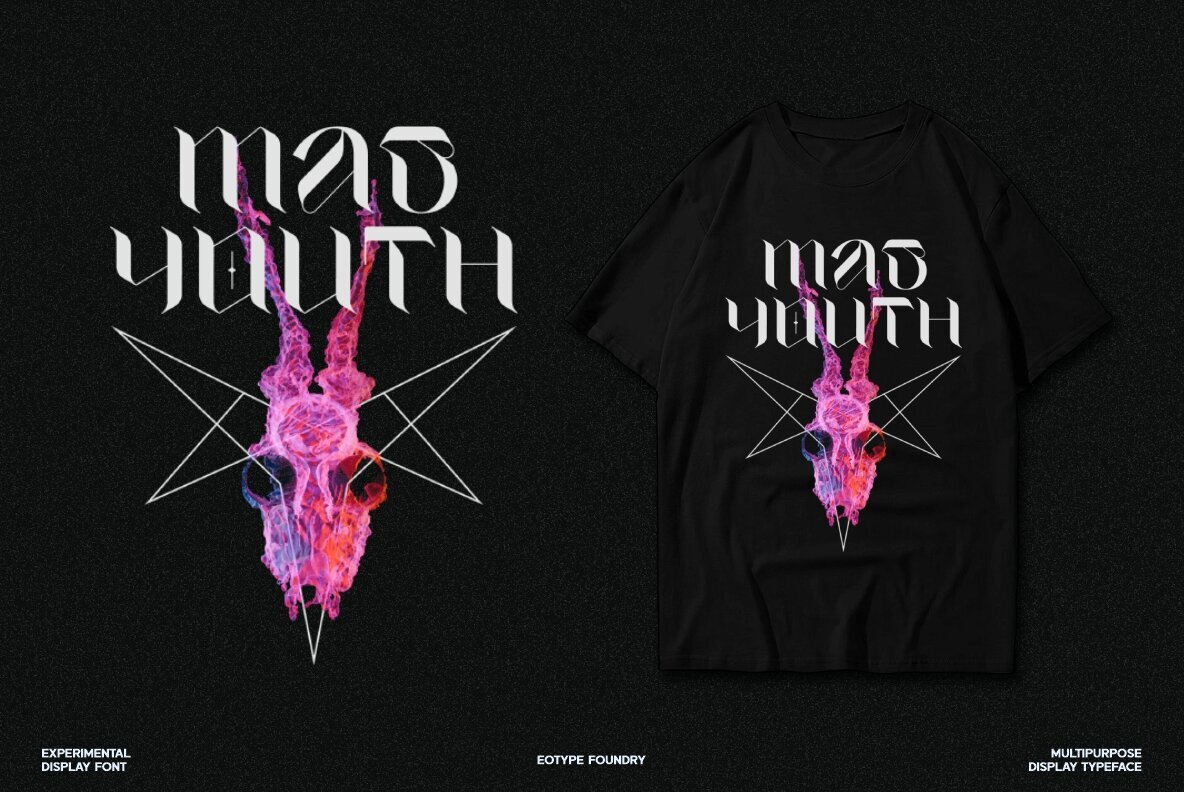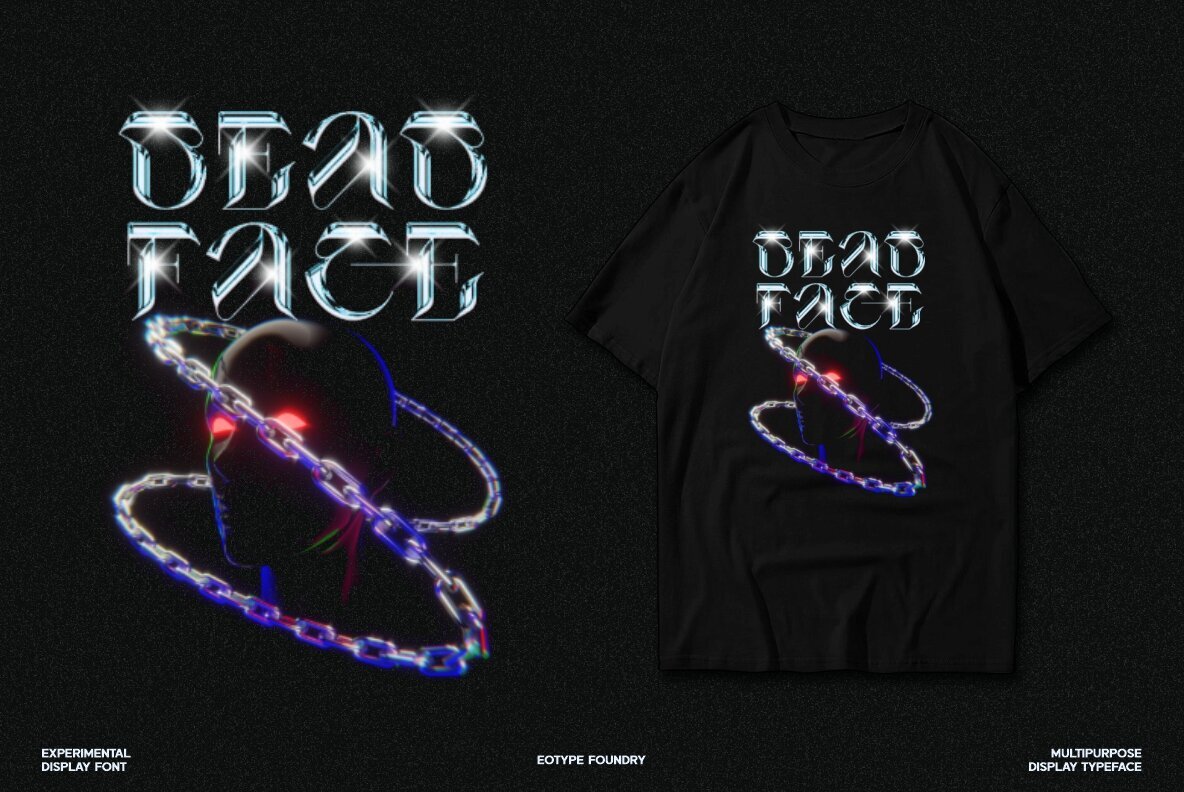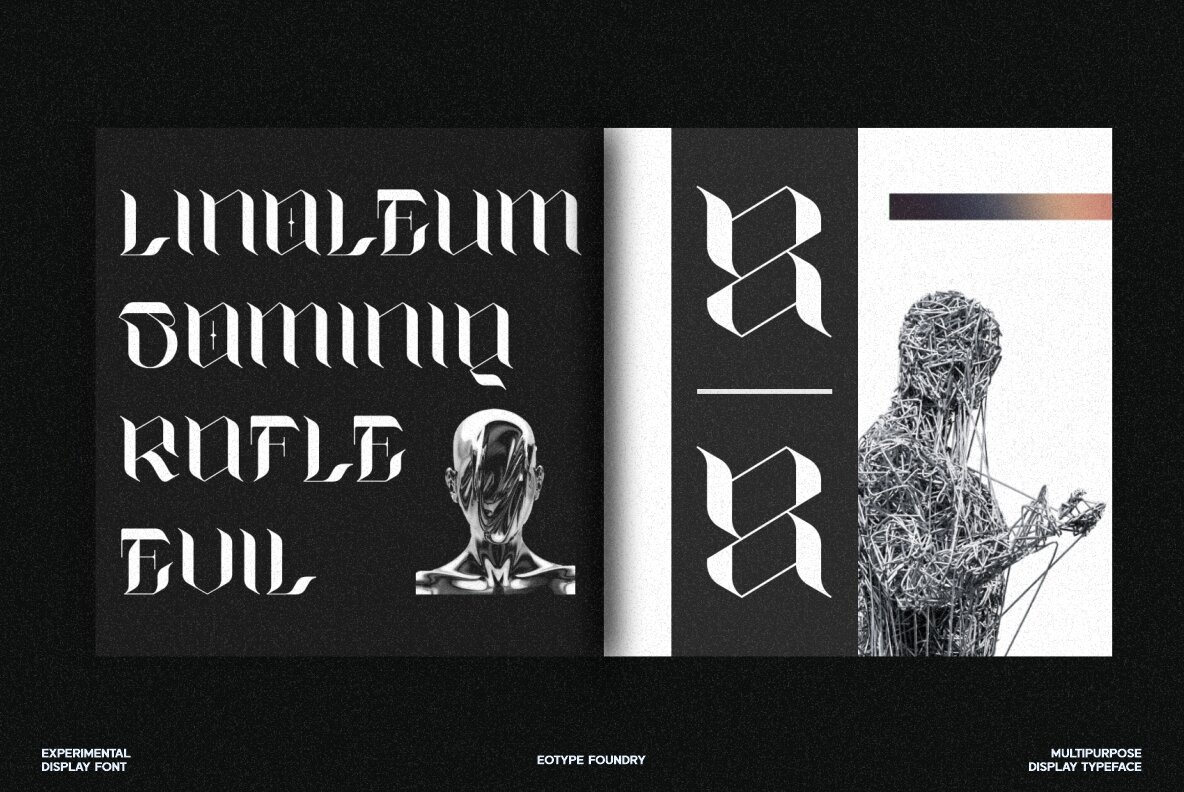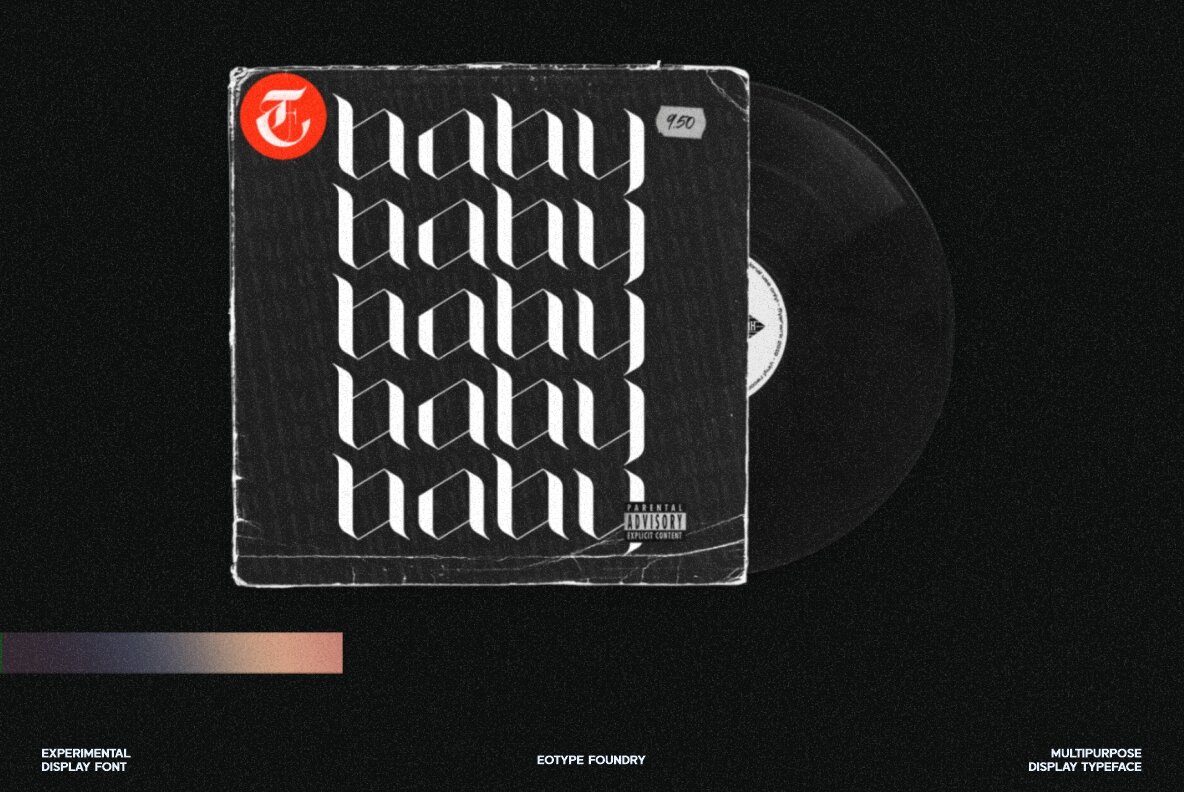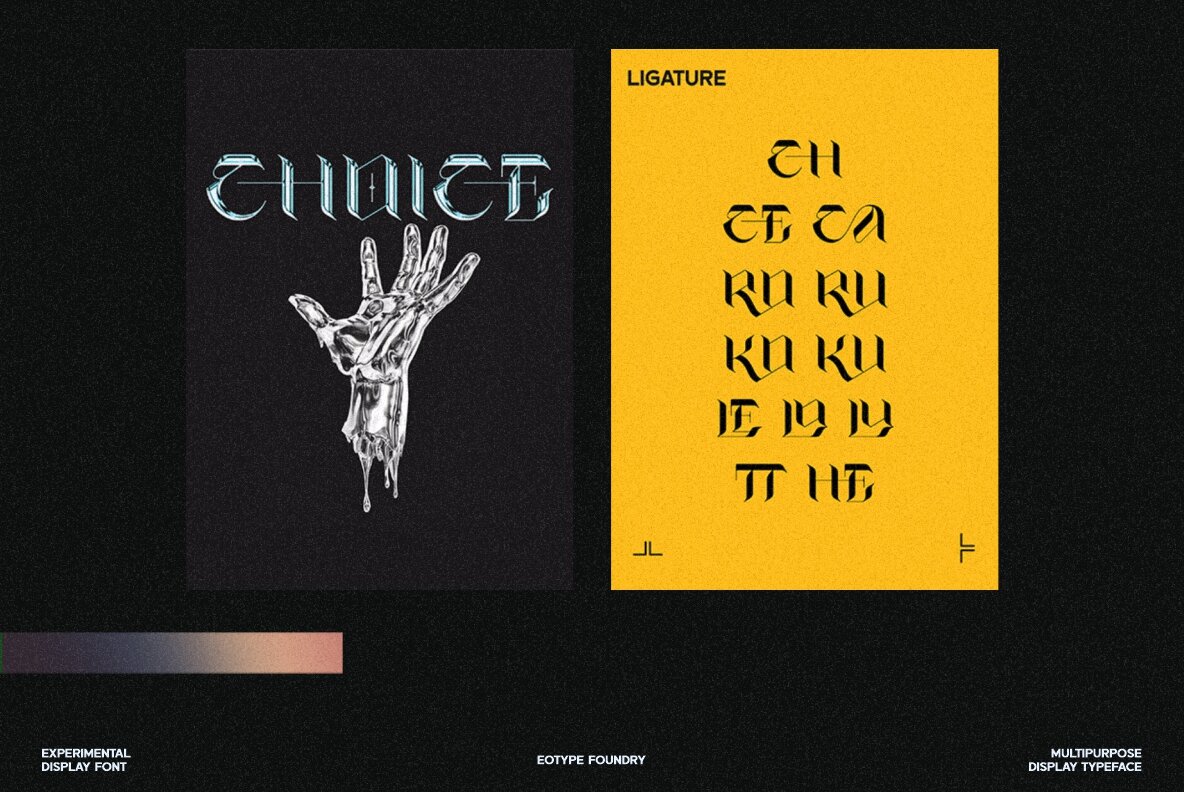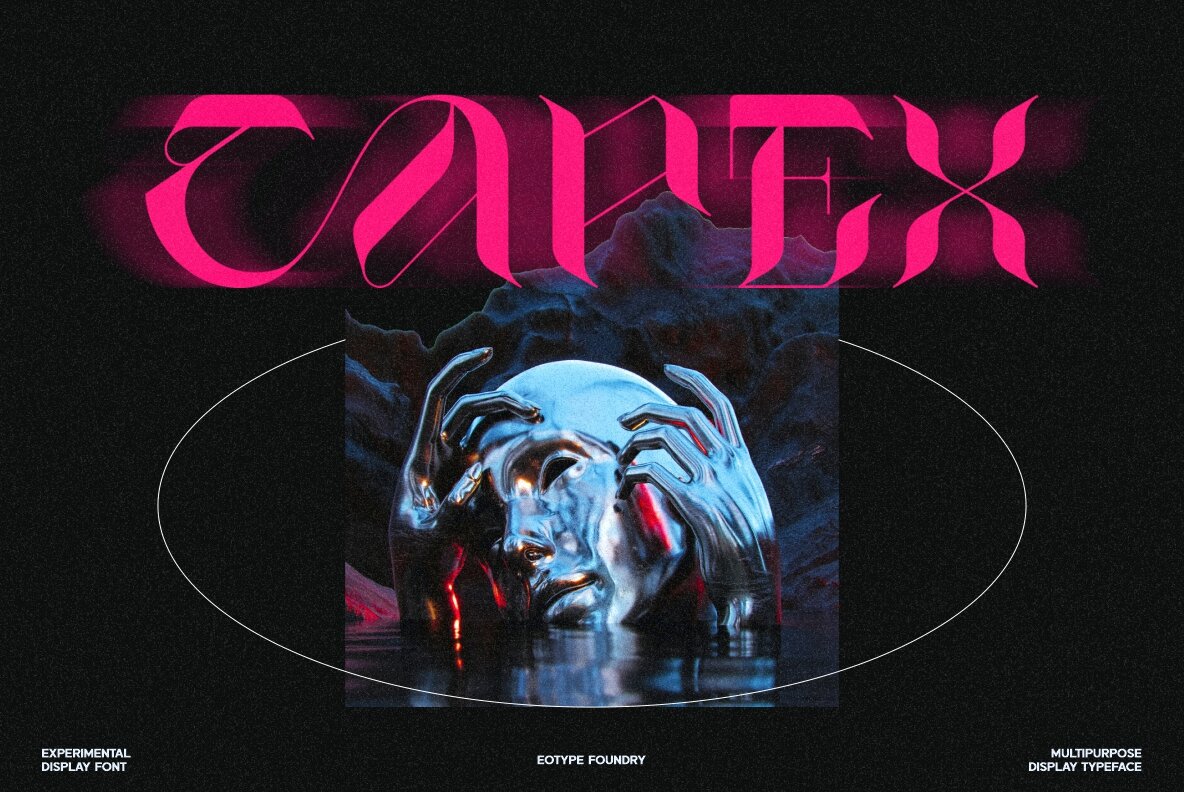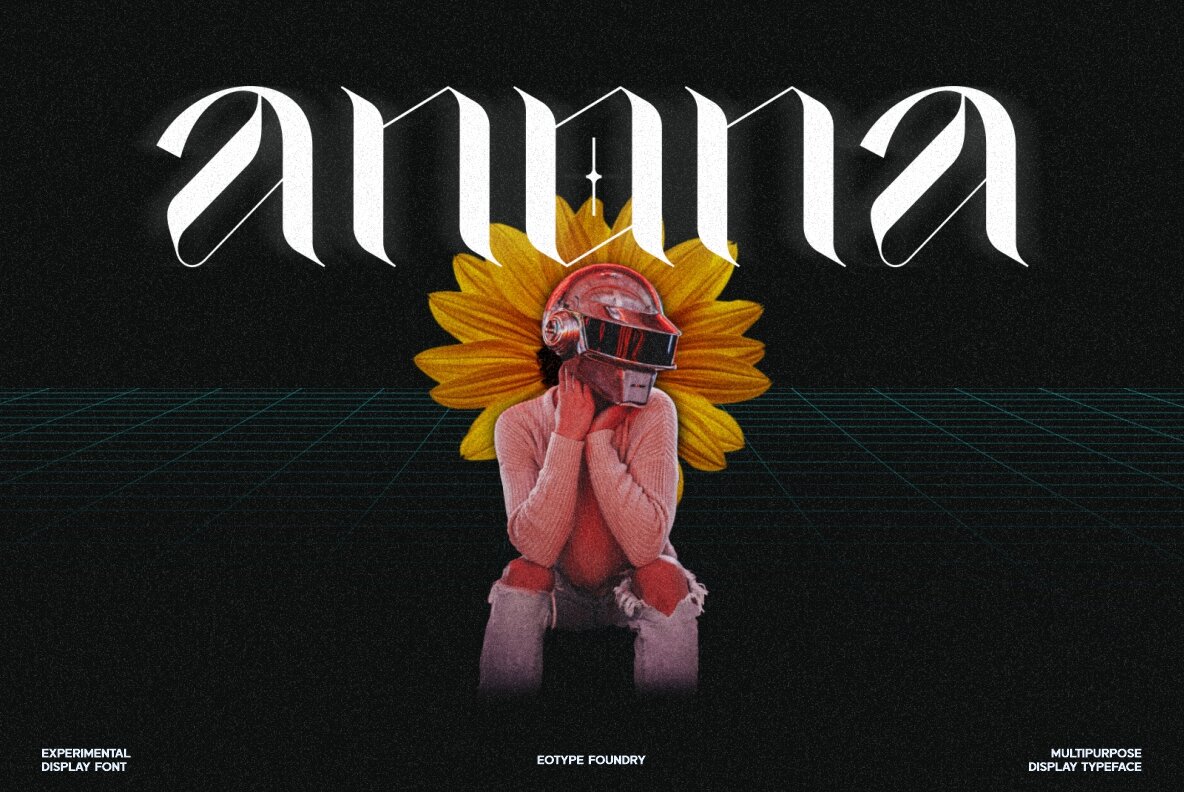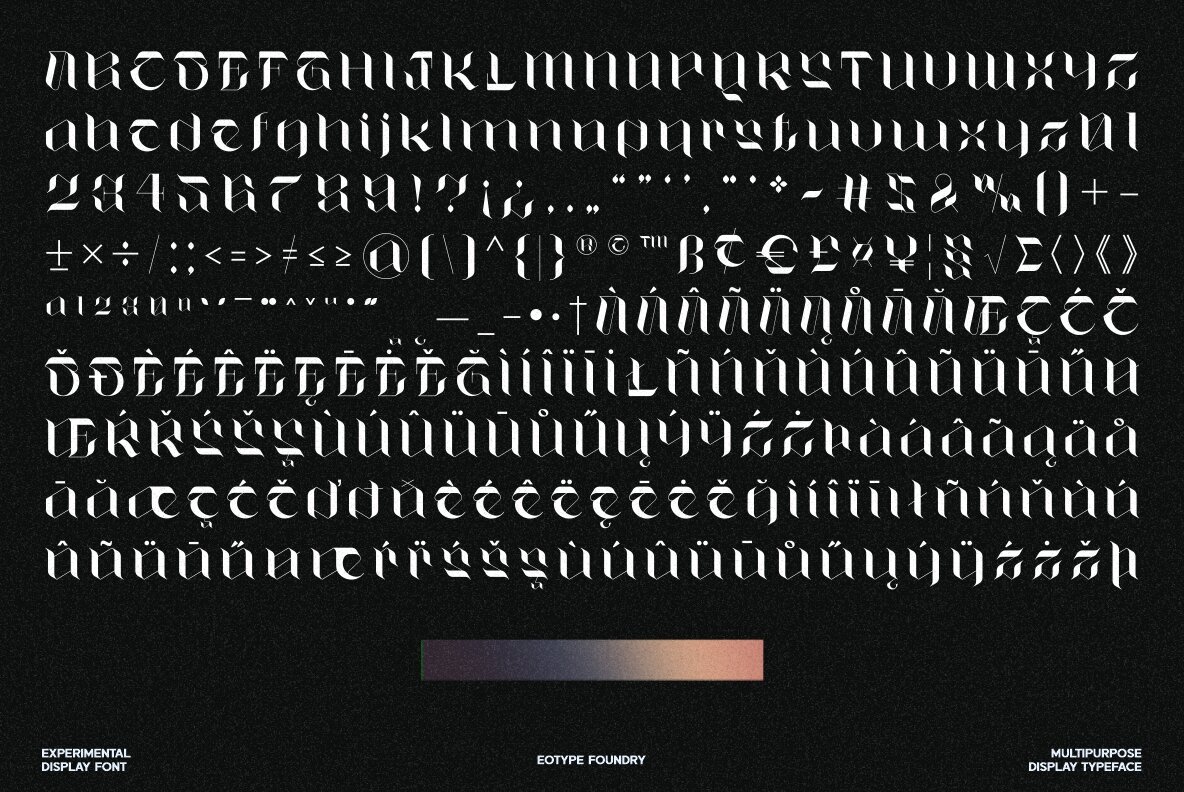
DeadFace Font
Dead Face Regular
Dead Face is an experimental black letter font that has a strong abstract appearance. Dead Face is a black letter font with unique fractures, where each fracture tends to be soft in synergy with thin strokes. Each glyph is crafted originally, so it can stand alone which can be used for logos or clothing designs. This font is also suitable for banners and posters. This font has alternate features and ligatures that are packaged in otf format. Have fun being creative using this font!